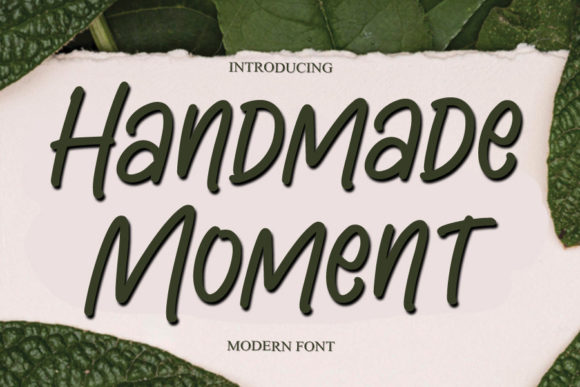
Immerse yourself in the captivating world of Handmade Moment, a script font family that exudes warmth and charm. Crafted by the visionary ABBAsalam, this exquisite font collection promises to elevate your designs with its natural and unique style.
Unleash your creativity and let Handmade Moment guide you through a boundless realm of possibilities. Its delicate strokes and playful characters bring a touch of whimsy to any project, whether it be a personal journal, an eye-catching logo, or an unforgettable social media post.
With endless applications, Handmade Moment is a versatile font family that adapts seamlessly to your creative vision. Whether you're a seasoned designer or just starting, this font will effortlessly elevate your work, adding a touch of elegance and sophistication.